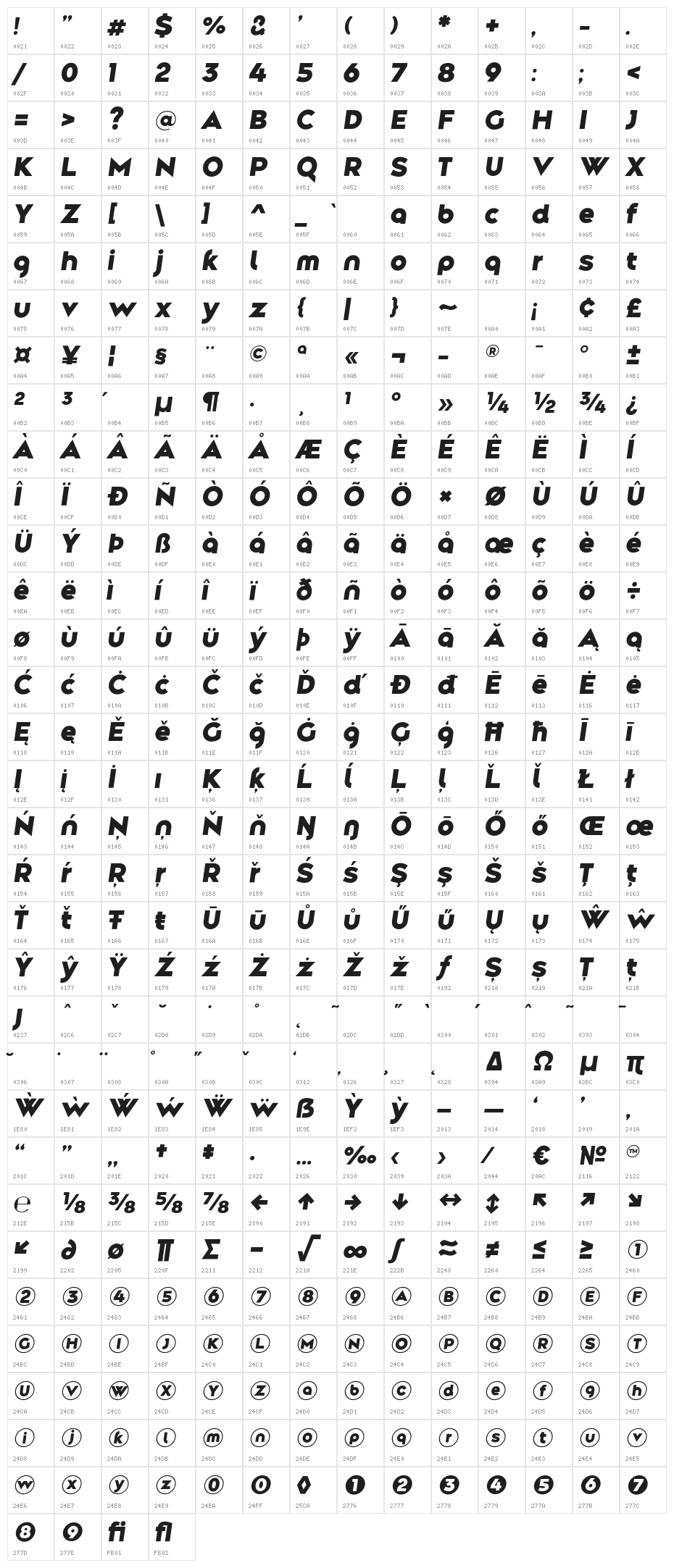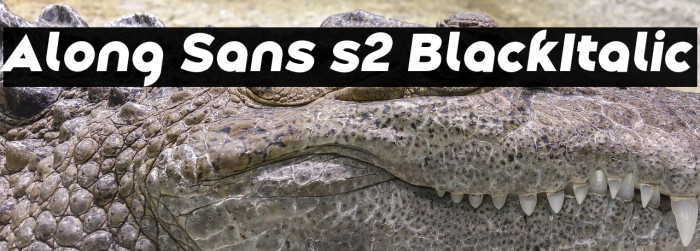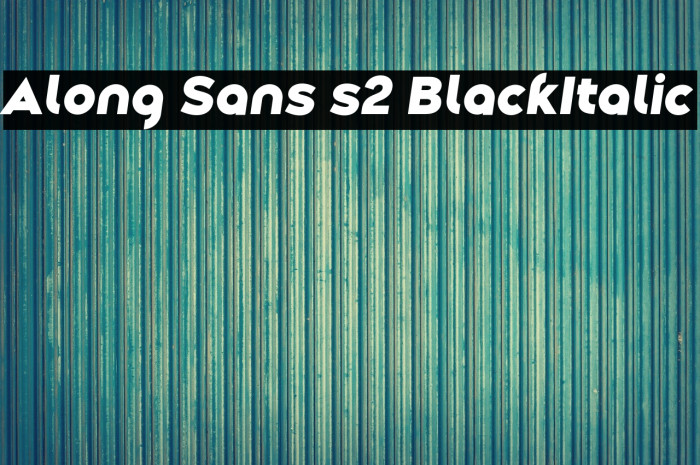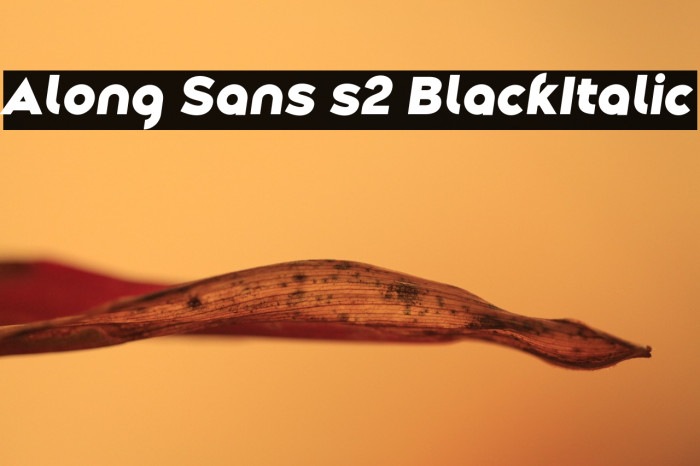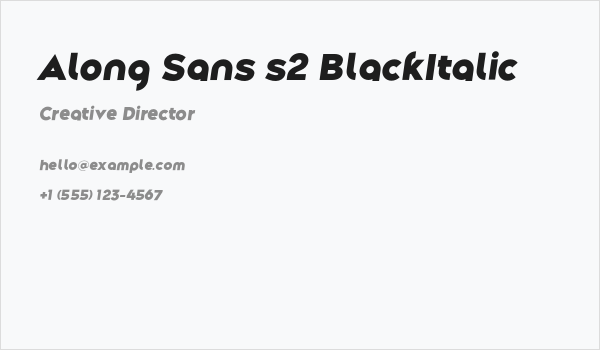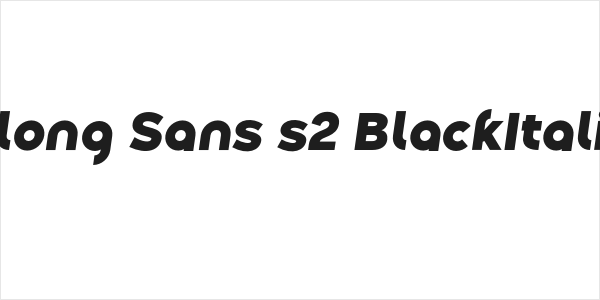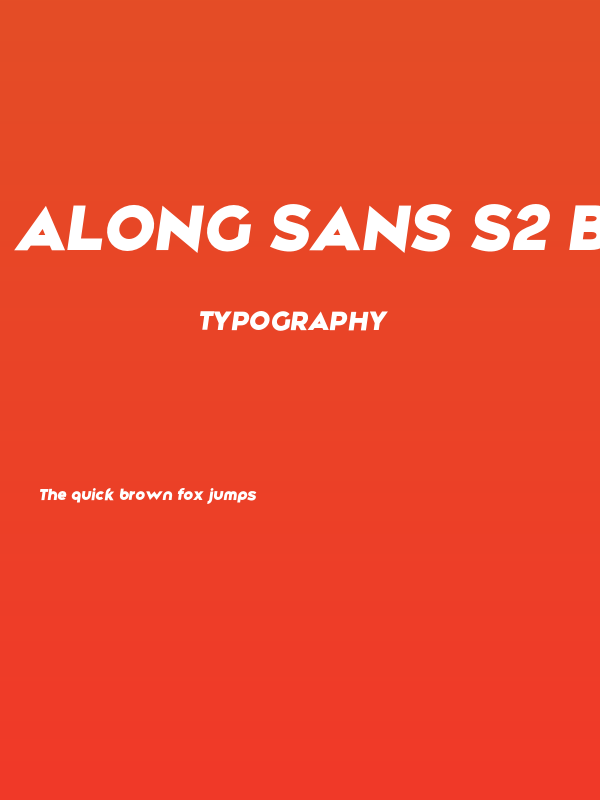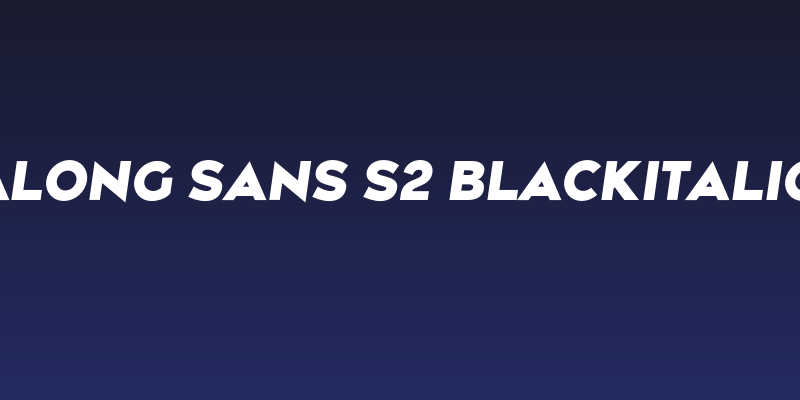
Along Sans s2 BlackItalic Font
Along Sans s2 BlackItalic Description
This font features a bold and dynamic style with a strong italic slant, giving it a sense of movement and energy. The characters are thick and robust, with a modern sans-serif design that emphasizes clarity and impact. The uppercase letters are particularly striking, with sharp angles and clean lines, while the lowercase letters maintain a consistent weight and style. The numerals are equally bold, ensuring readability and uniformity across different uses. Special characters are included, maintaining the same bold and italicized characteristics, making this font versatile for various applications.
| Use Case | Headlines, Logos, Advertising |
| Proposed Projects | Ideal for branding, advertising, headlines, and any project requiring a strong visual impact. |